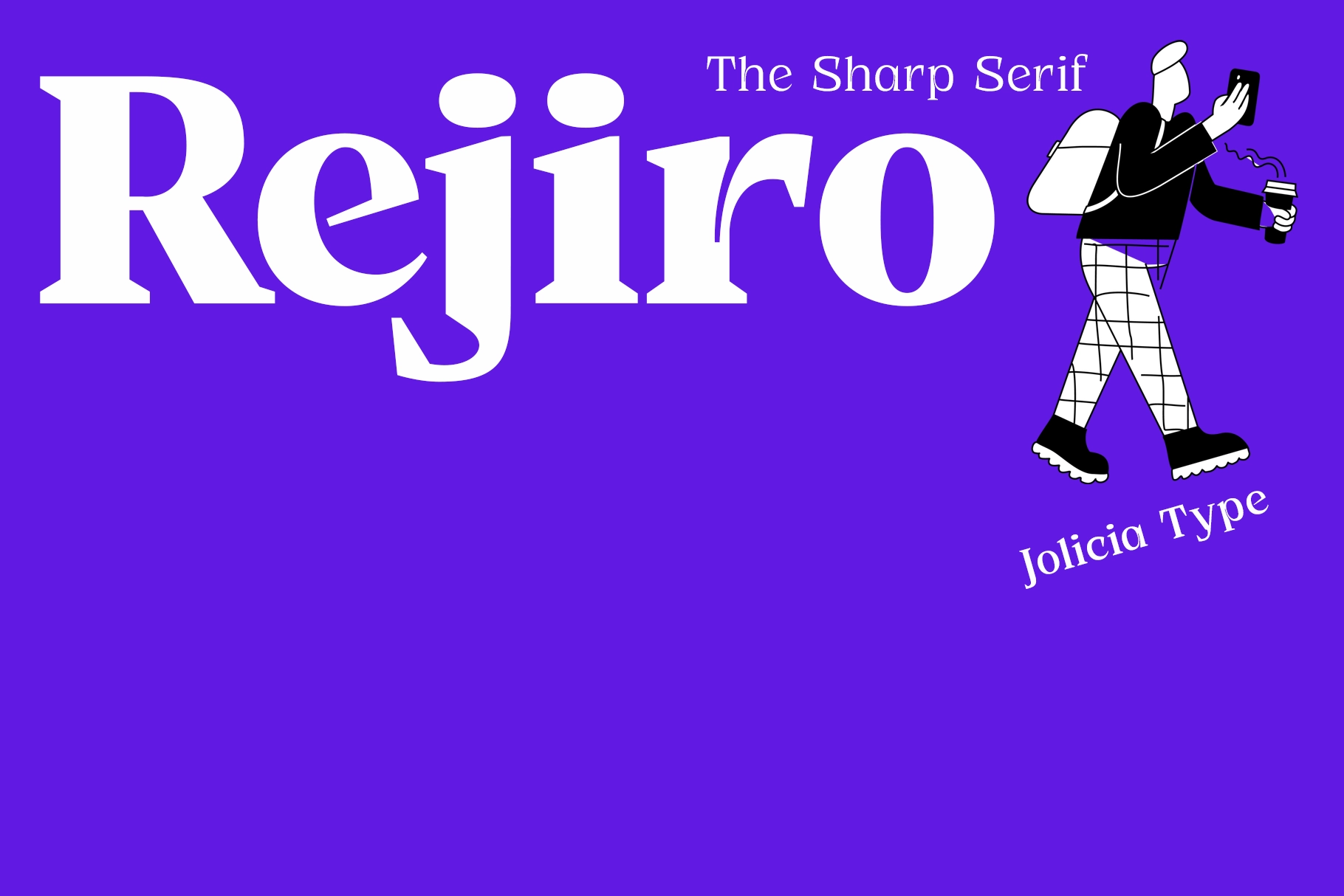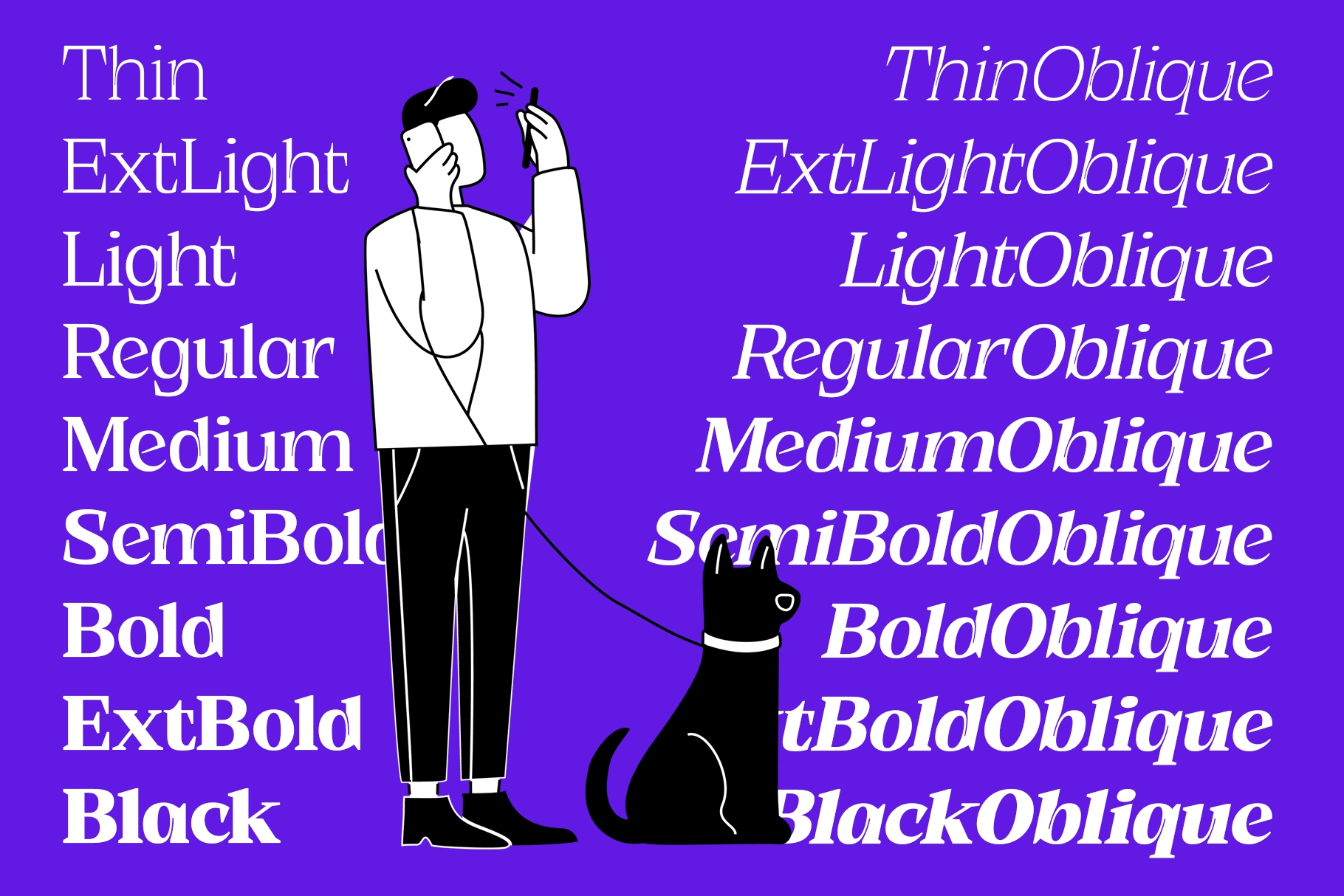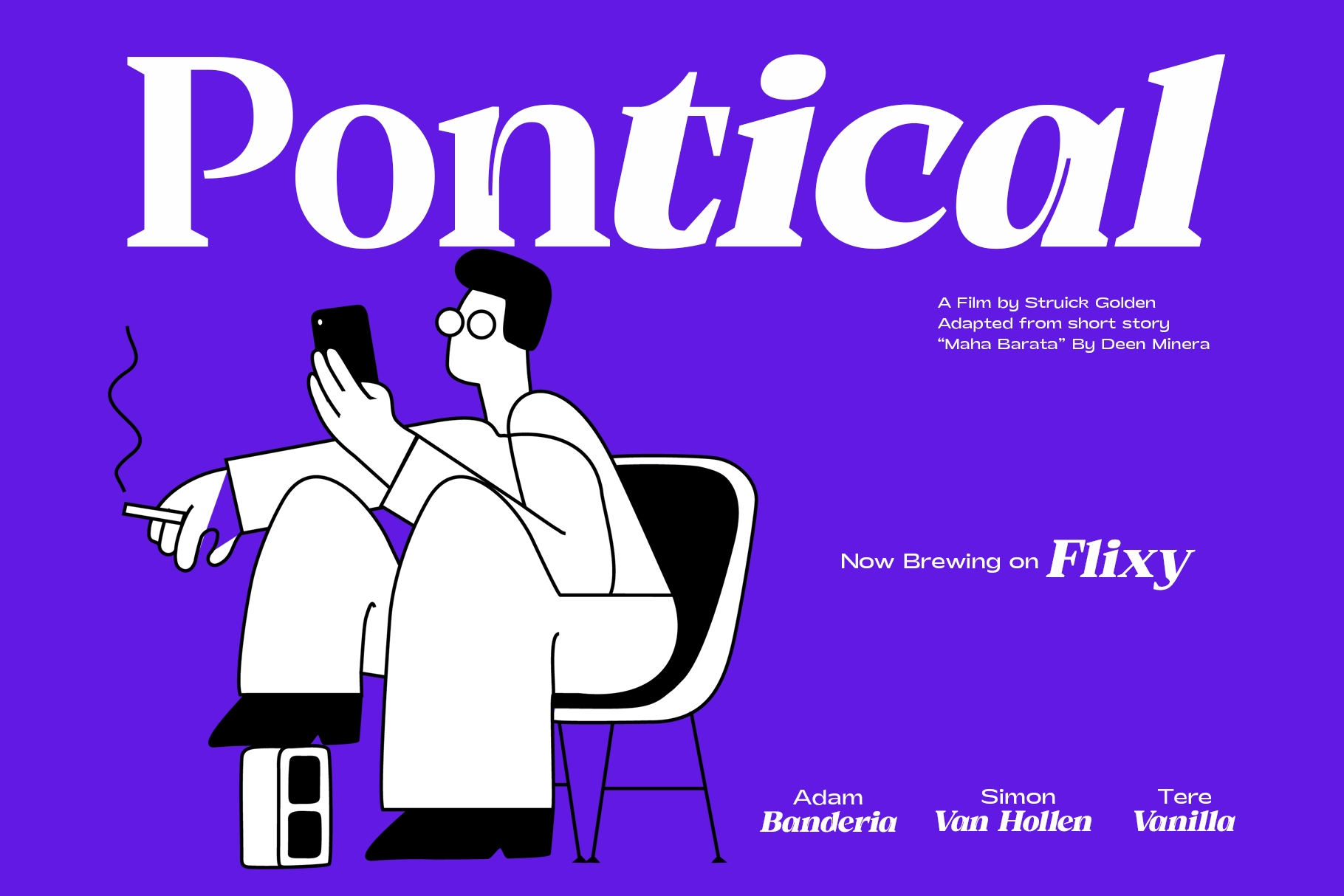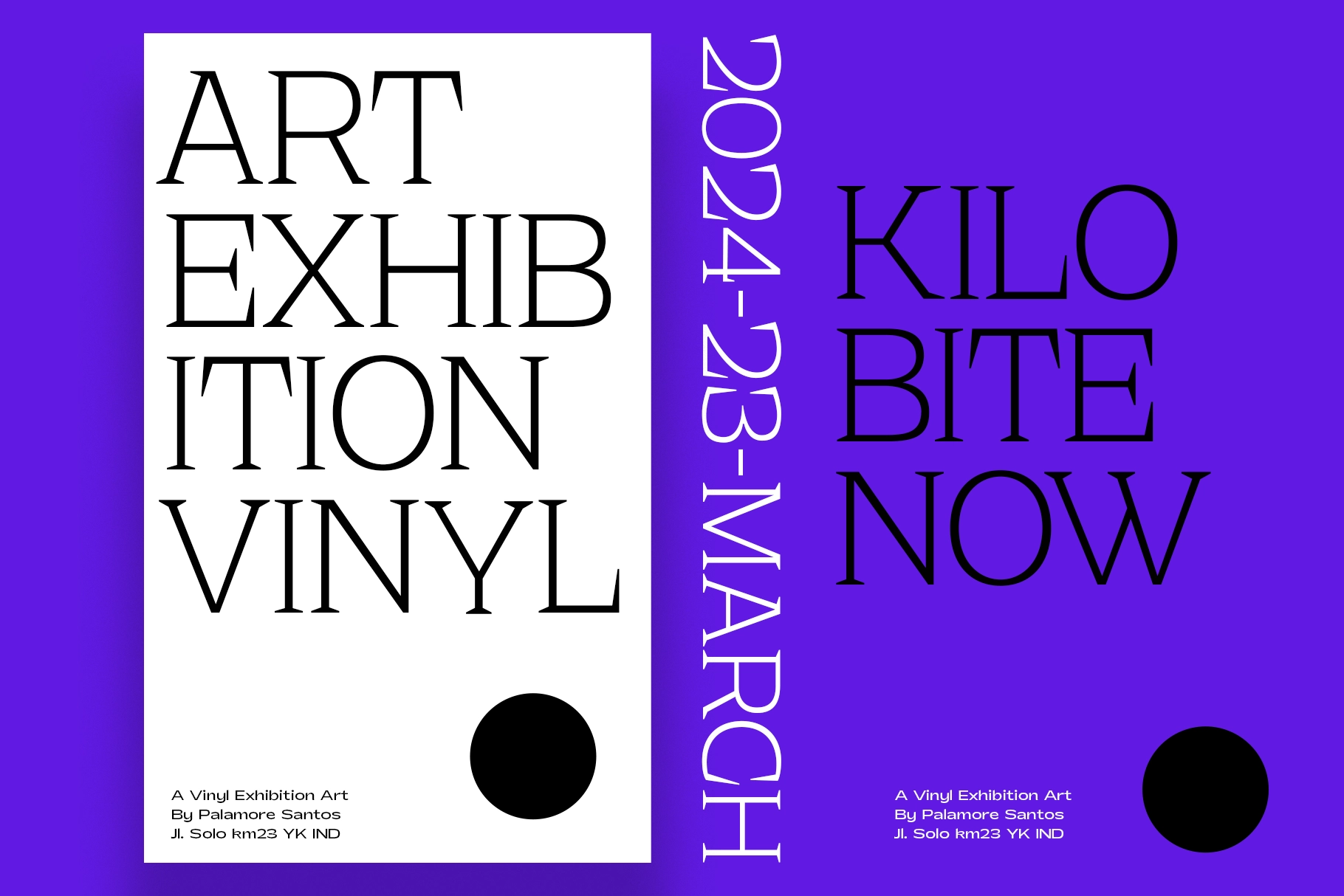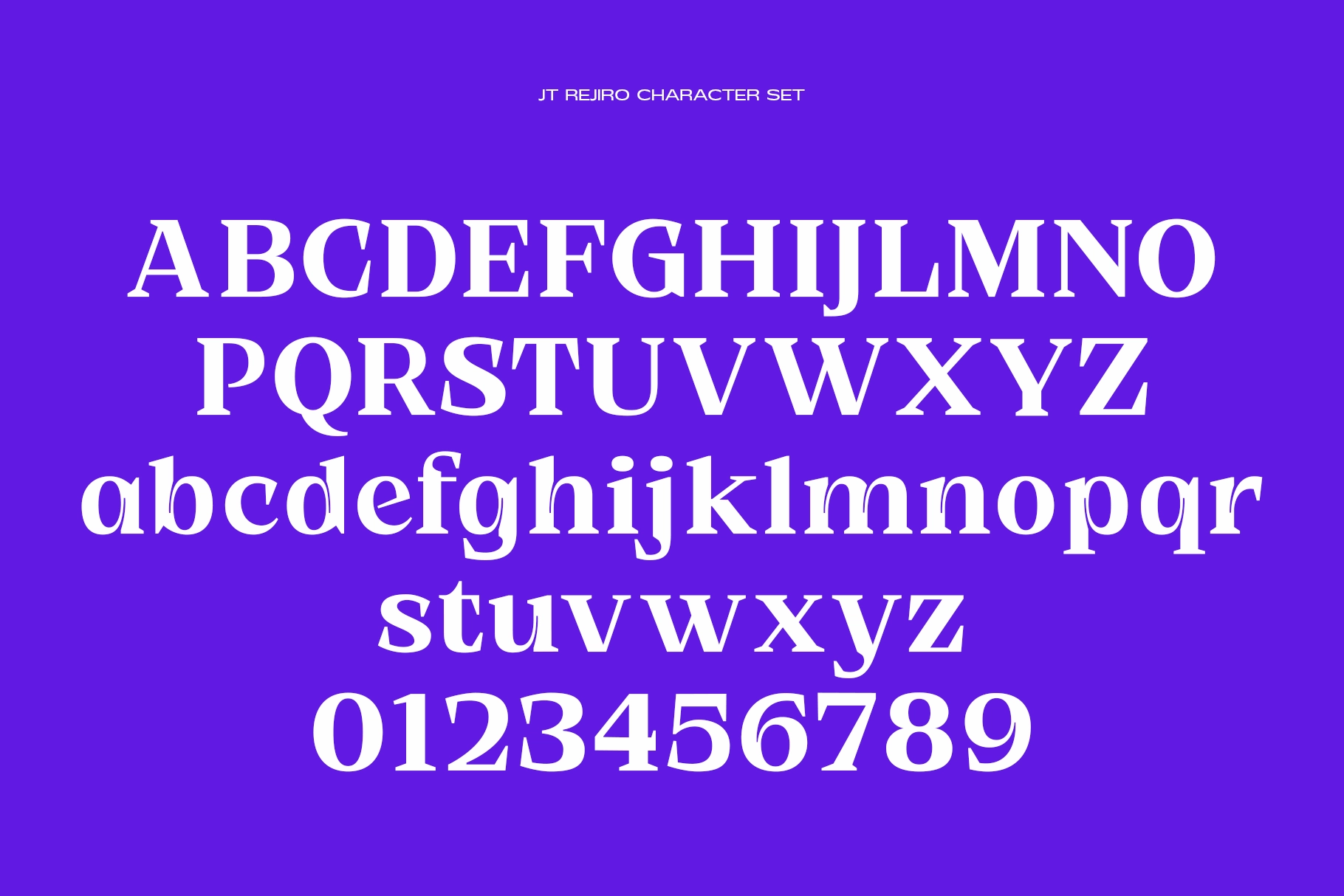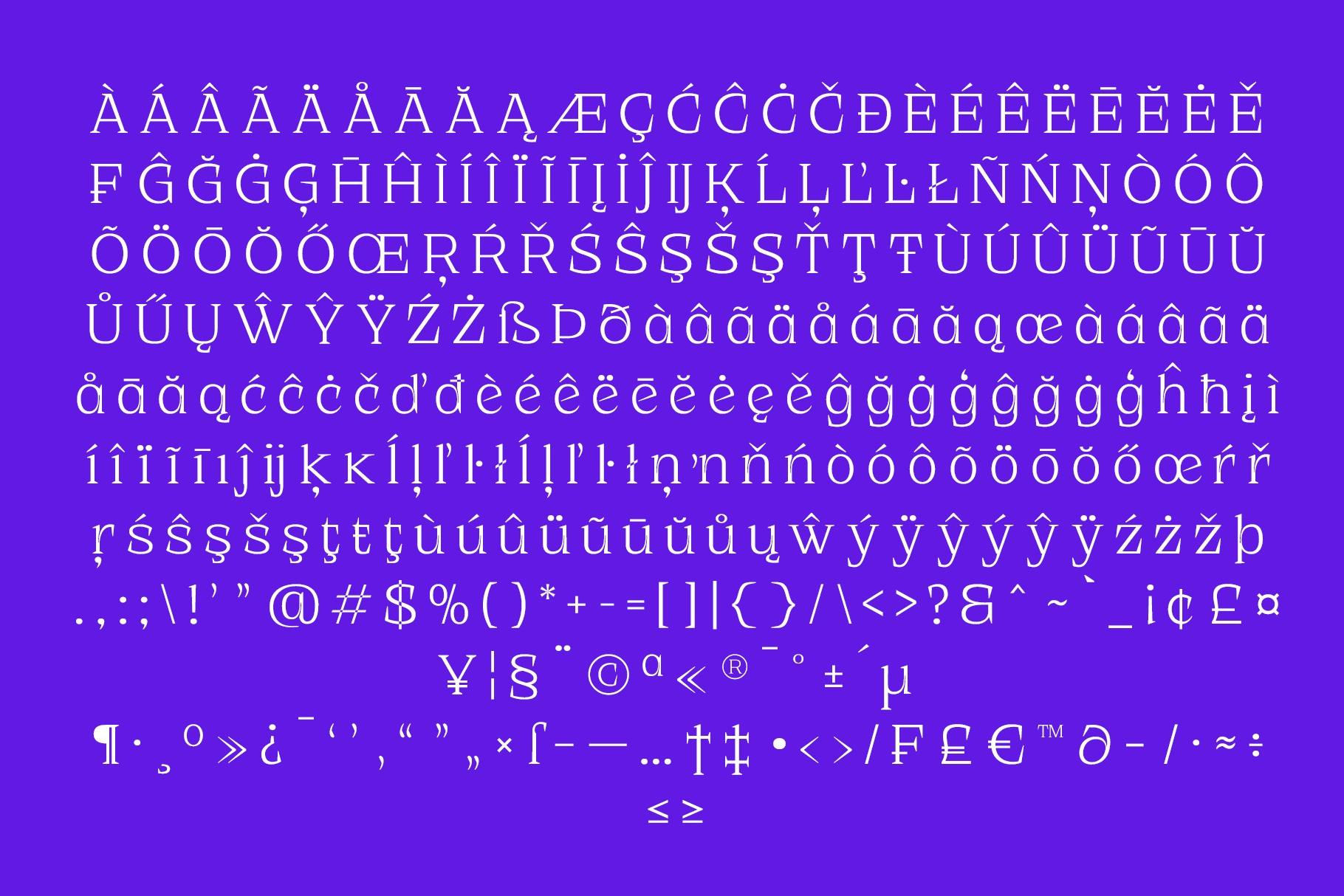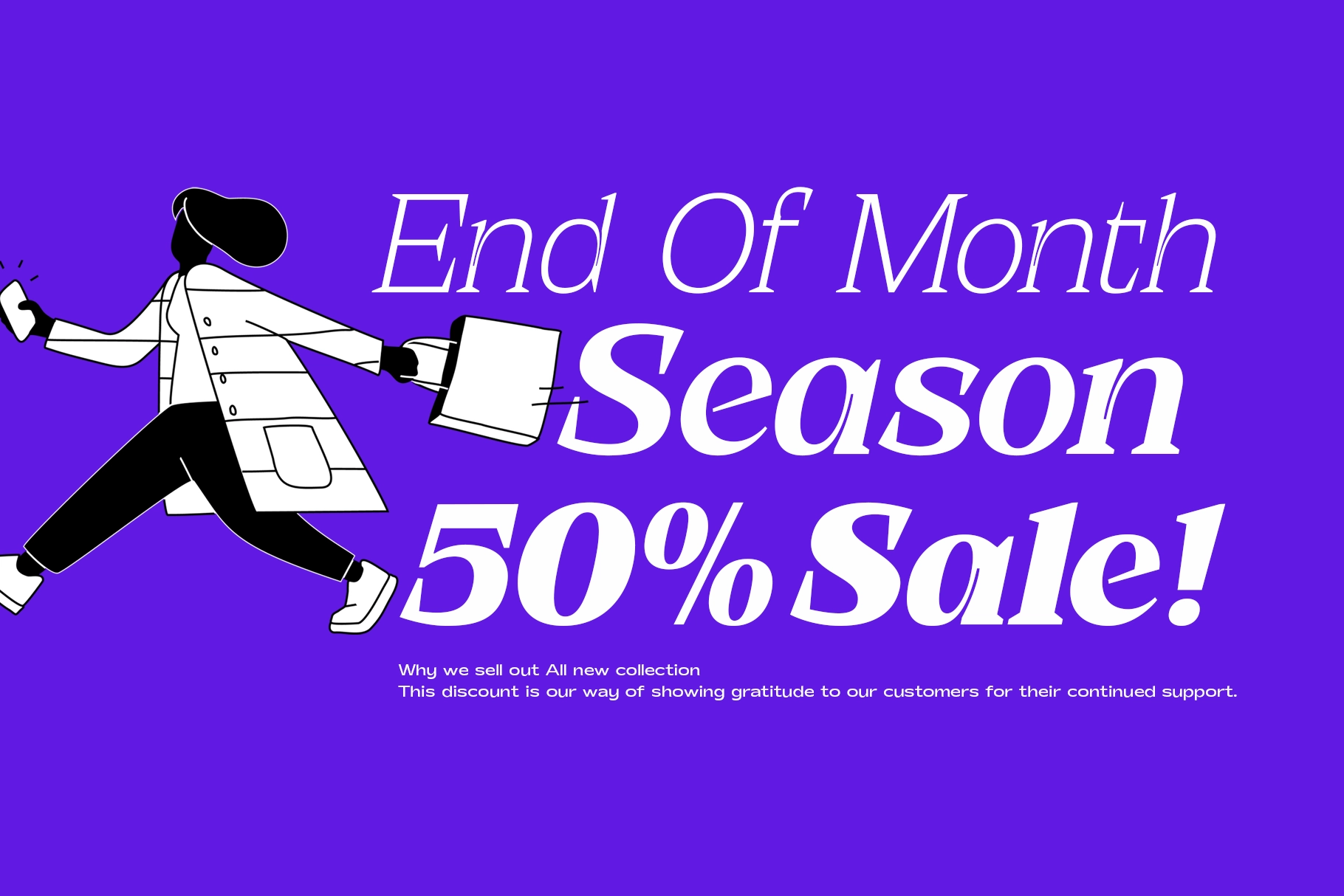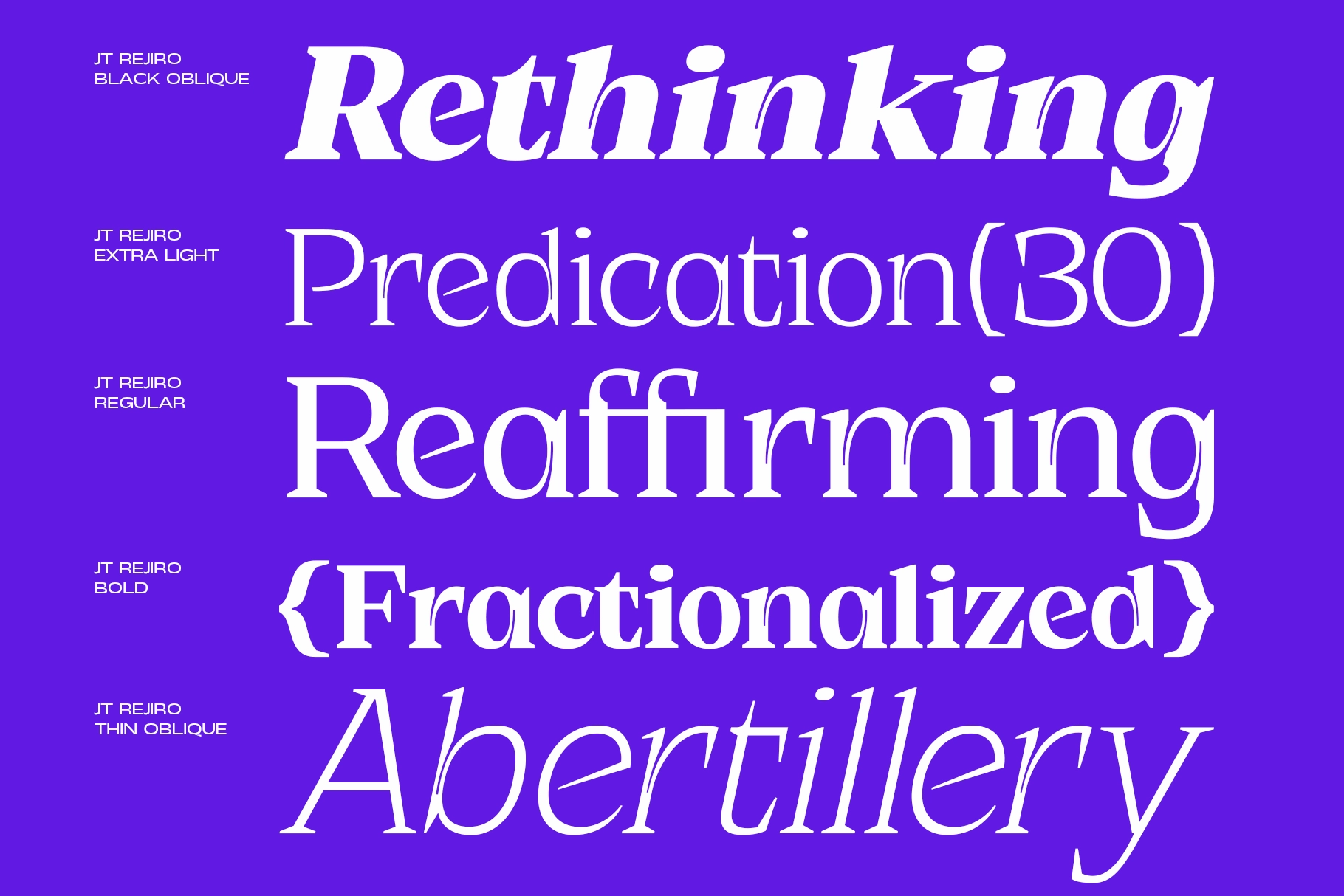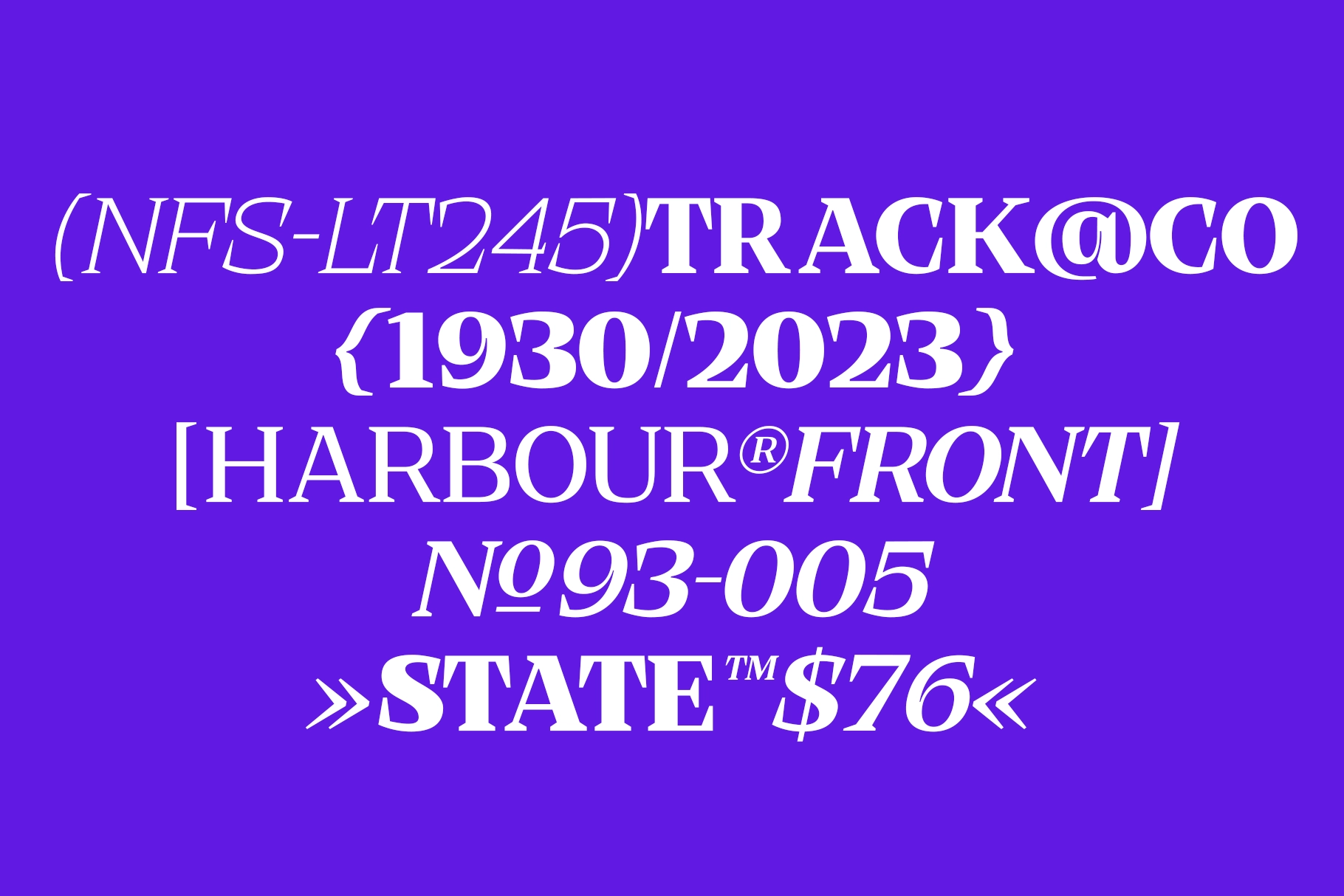
JT Rejiro - Sharp Serif Display Font Family
JT Rejiro is a sharp serif display font family with pointed terminals and dramatic ink traps at every thick stem junction. The contrast between the fine hairlines and the blocky serifs gives each letterform a pointed, editorial-ready edge. The family runs to eighteen weight styles — from Thin through Black, each paired with a matching Oblique — so it scales from delicate captions to poster-scale headlines.
JT Rejiro holds up best where an editorial voice matters. Use it for magazine headlines, fashion branding, luxury logos, gallery posters, perfume packaging, apparel tags, gift sleeves, editorial pull quotes, book covers, and beauty campaign visuals.
- 2 Styles: Regular, Oblique;
- 9 Weights: from Thin to Black;
- Uppercase & lowercase;
- Numerals, punctuation & an extended symbol set;
- Multilingual support covering 92 languages;
- 348 glyphs total